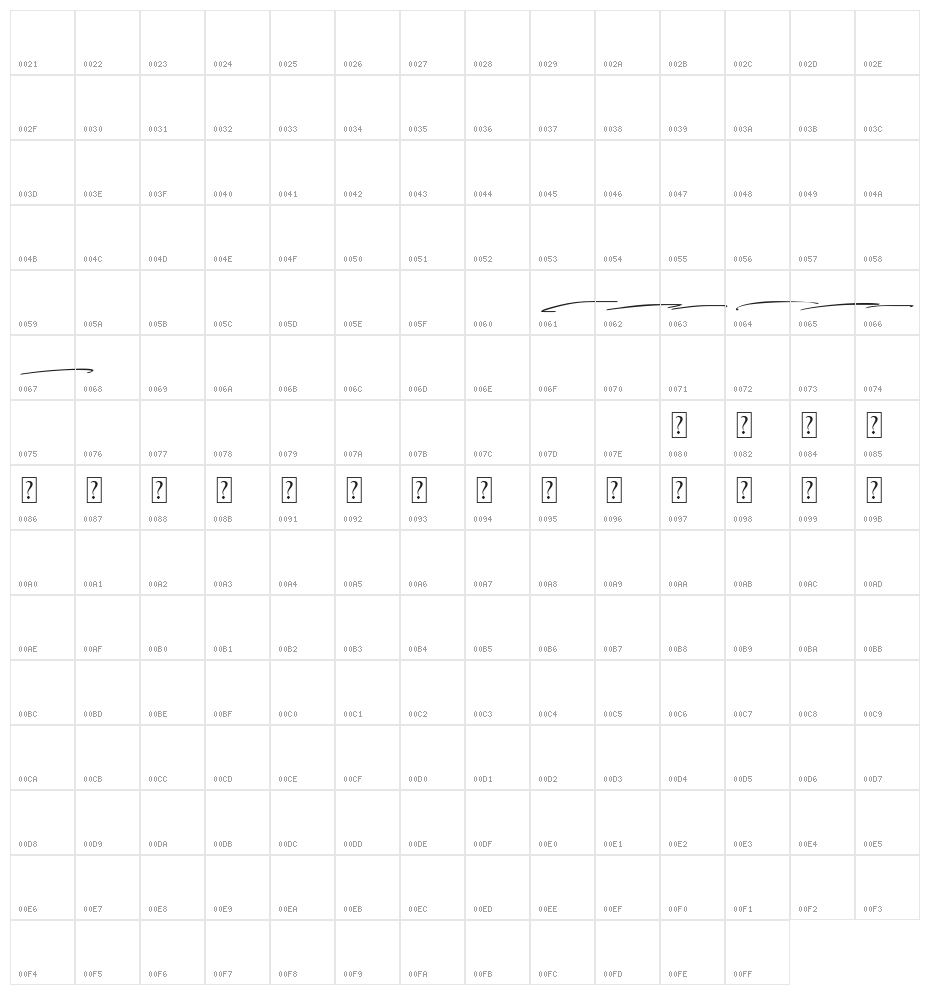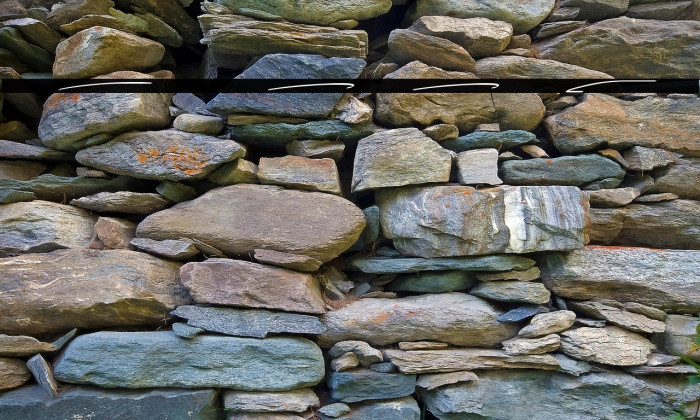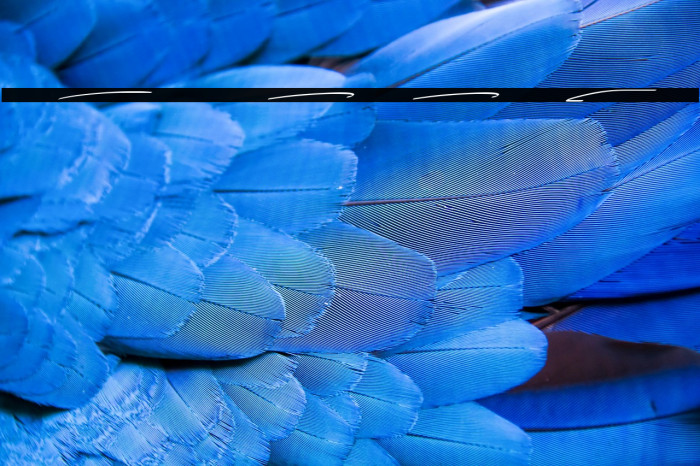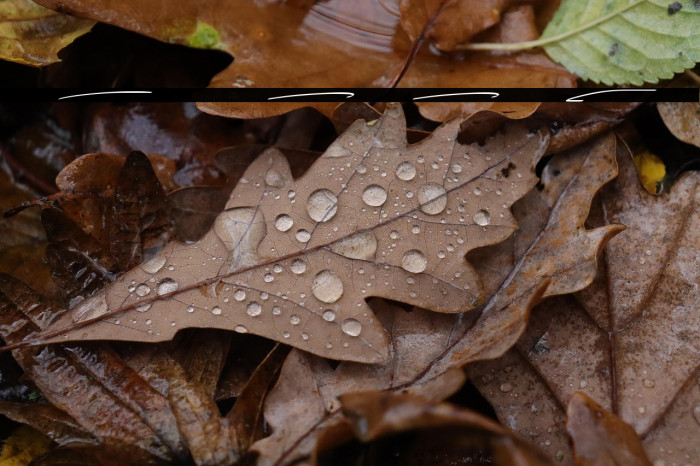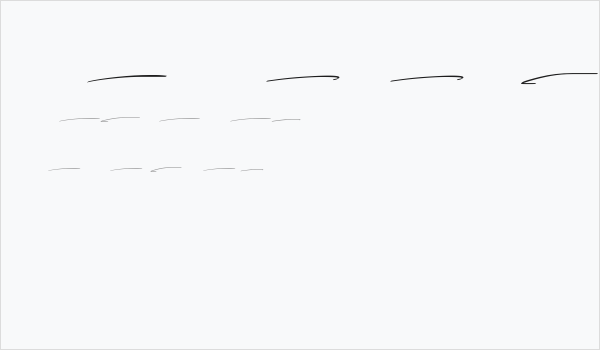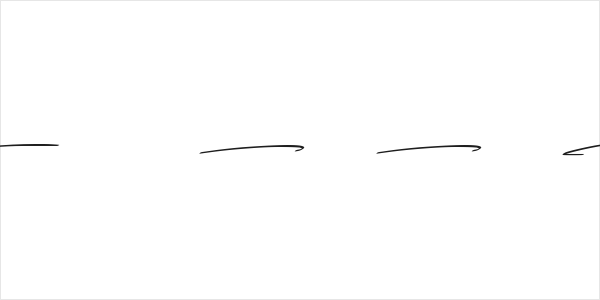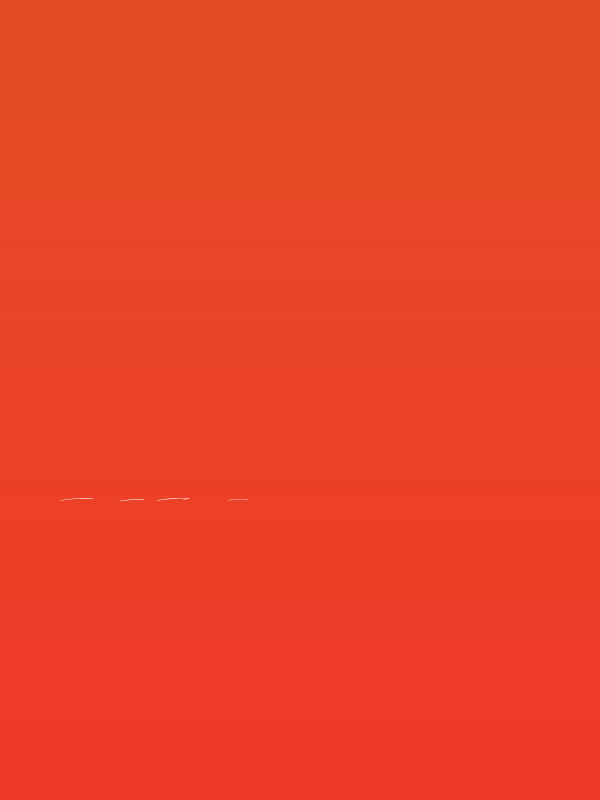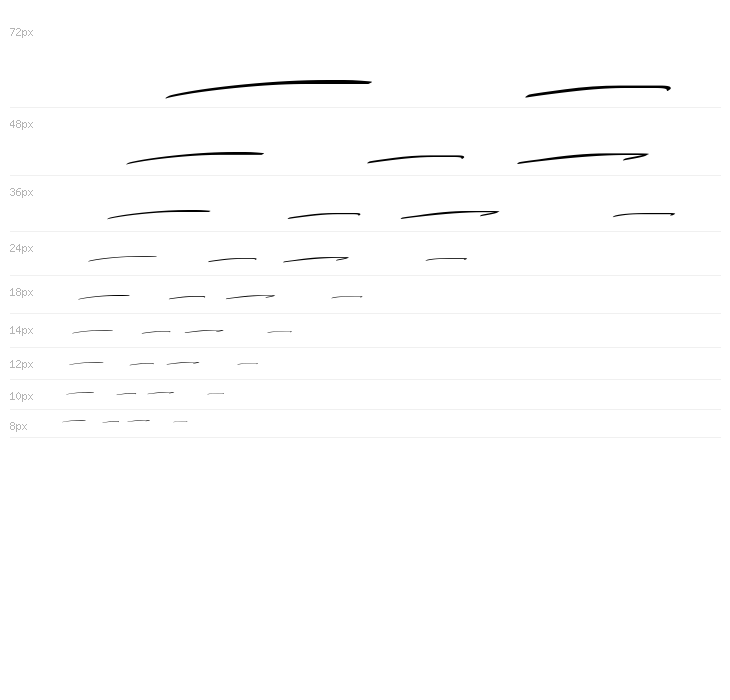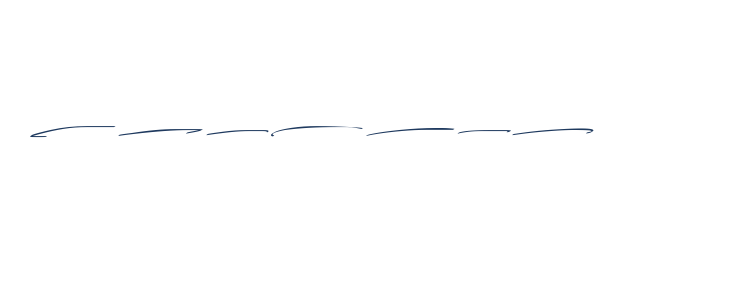
Over Thingking Swash Font
Over Thingking Swash Description
This font features a delicate and flowing script style, characterized by its elegant swashes and smooth curves. The letters are connected in a fluid manner, giving it a handwritten appearance. The strokes are thin and consistent, providing a graceful and airy feel. This font is ideal for adding a personal touch to designs, with its sophisticated and artistic flair. The overall look is refined and stylish, making it suitable for projects that require a touch of elegance and creativity.
| Overall Style | Elegant, Artistic |
| Proposed Projects | Ideal for wedding invitations, greeting cards, personal branding, and artistic projects. |